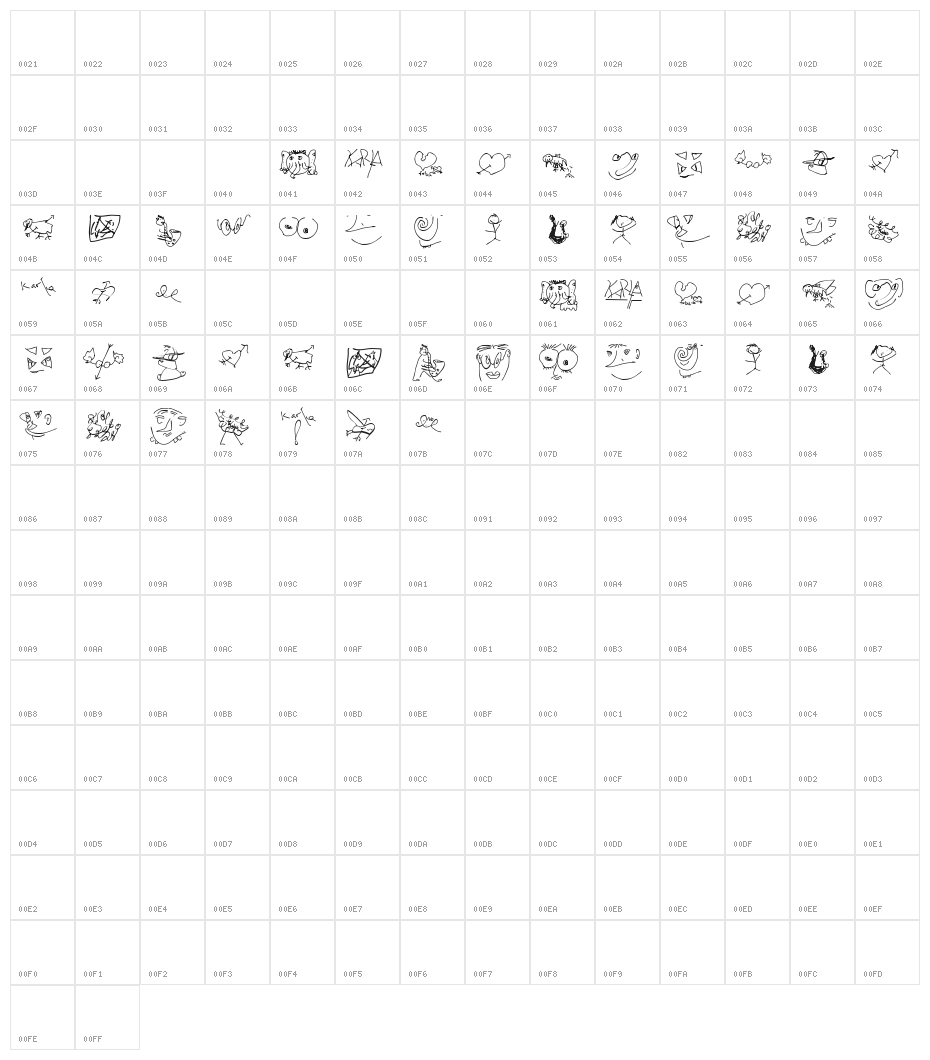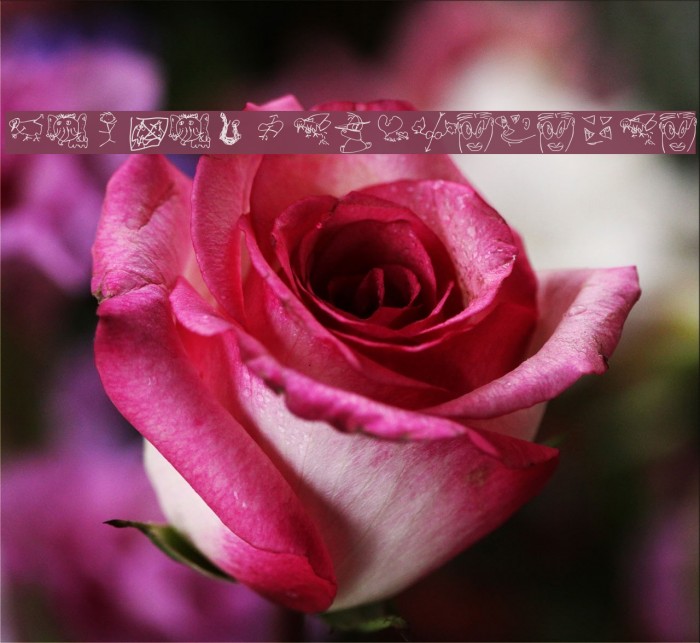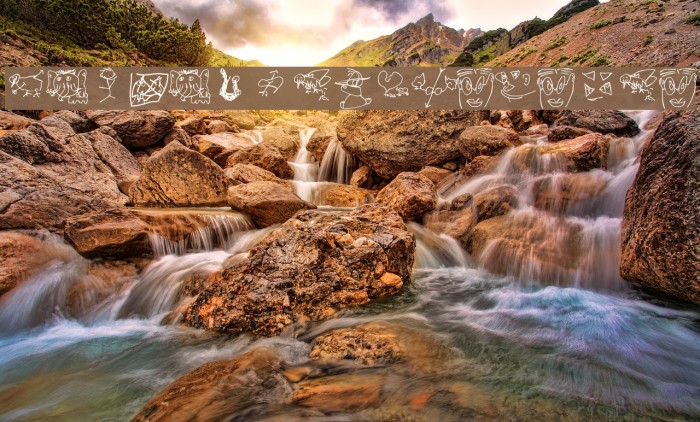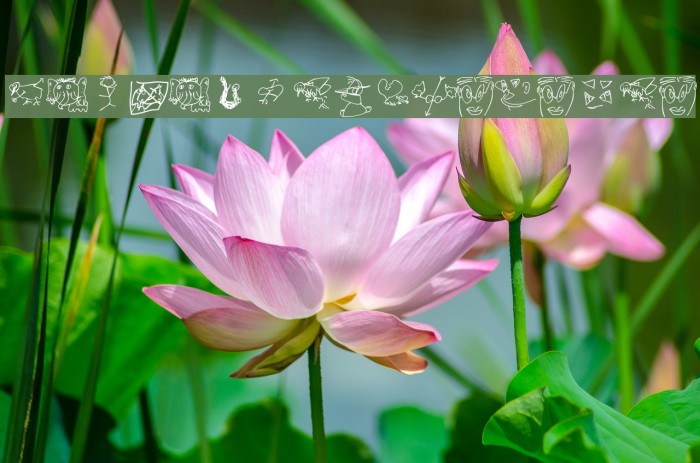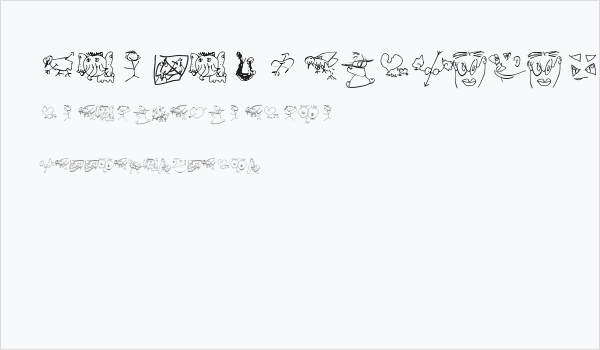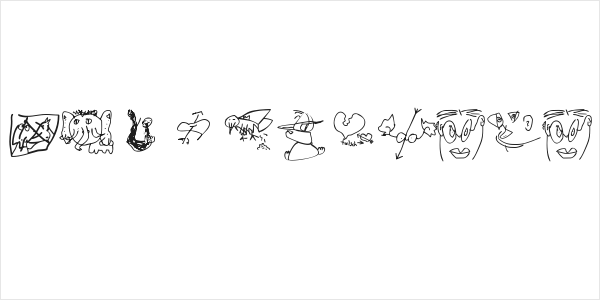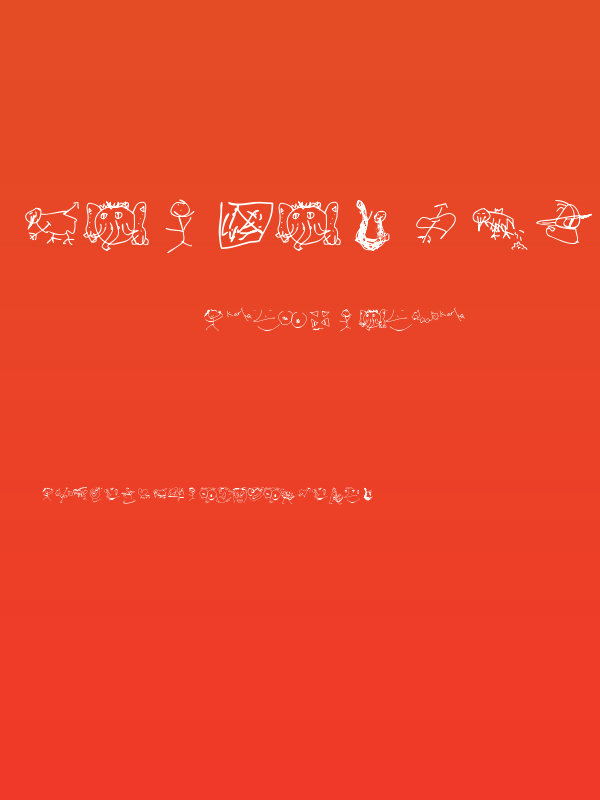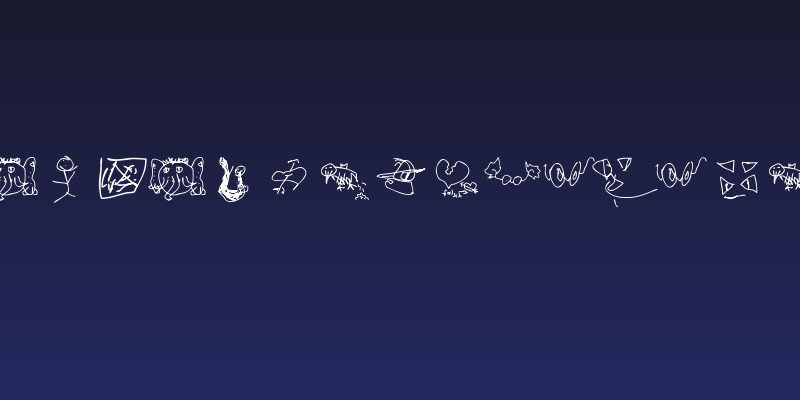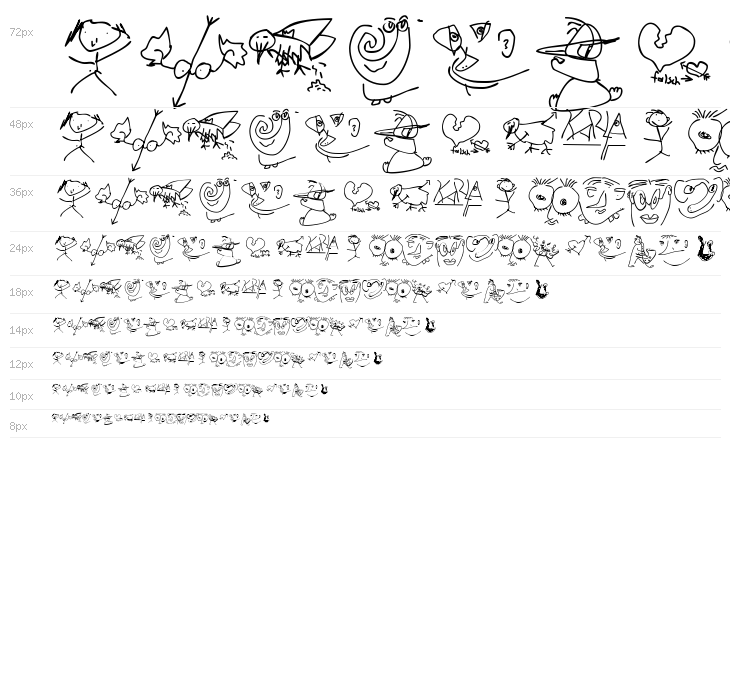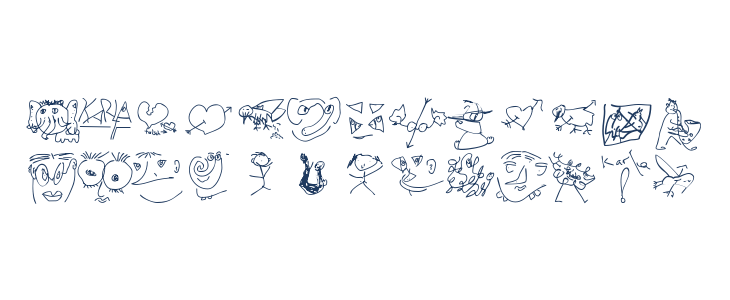
KarlasZeichnungen Font
KarlasZeichnungen Description
This is a whimsical and playful decorative font featuring a variety of hand-drawn illustrations instead of traditional alphanumeric characters. Each character is represented by a unique doodle, ranging from abstract shapes to cartoon-like figures. The style is informal and artistic, with a focus on creativity and visual storytelling. The font is not designed for readability but rather for artistic expression and decorative purposes. It captures a sense of fun and imagination, making it suitable for projects that aim to convey a lighthearted and creative atmosphere.
| Use Case | Artistic projects, decorative elements, creative branding. |
| Proposed Projects | Ideal for children's book illustrations, creative posters, art projects, and playful branding materials. |